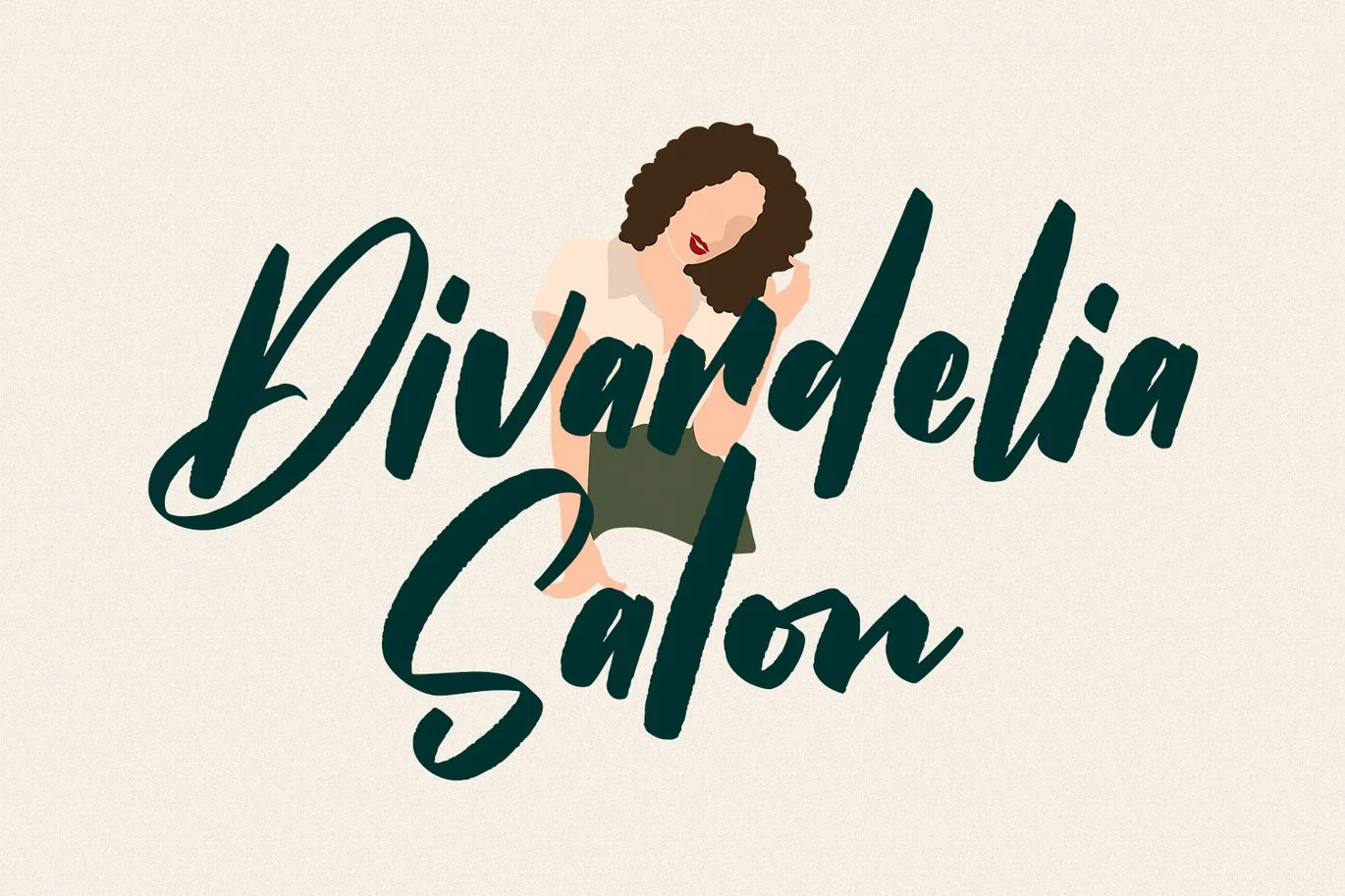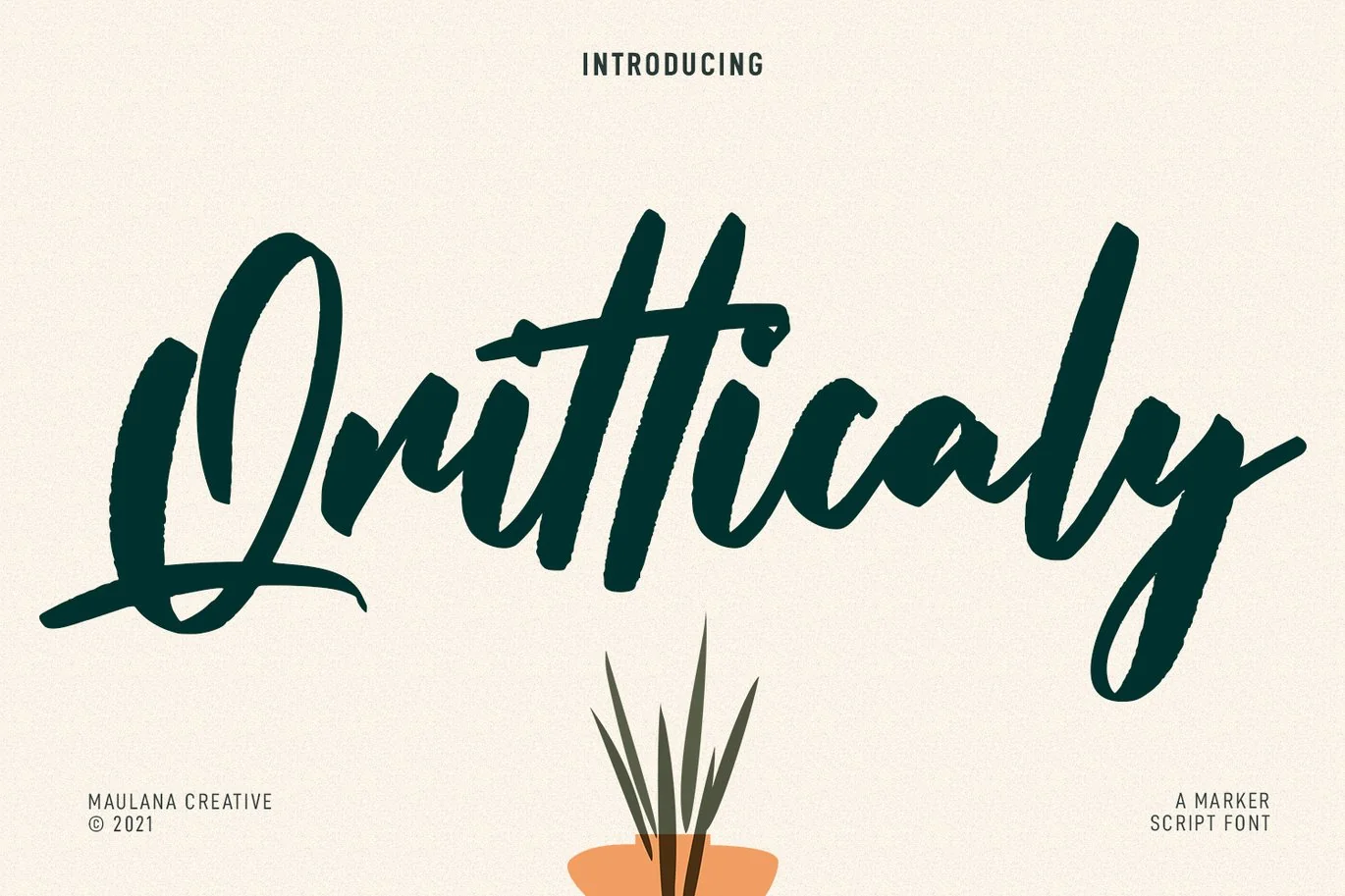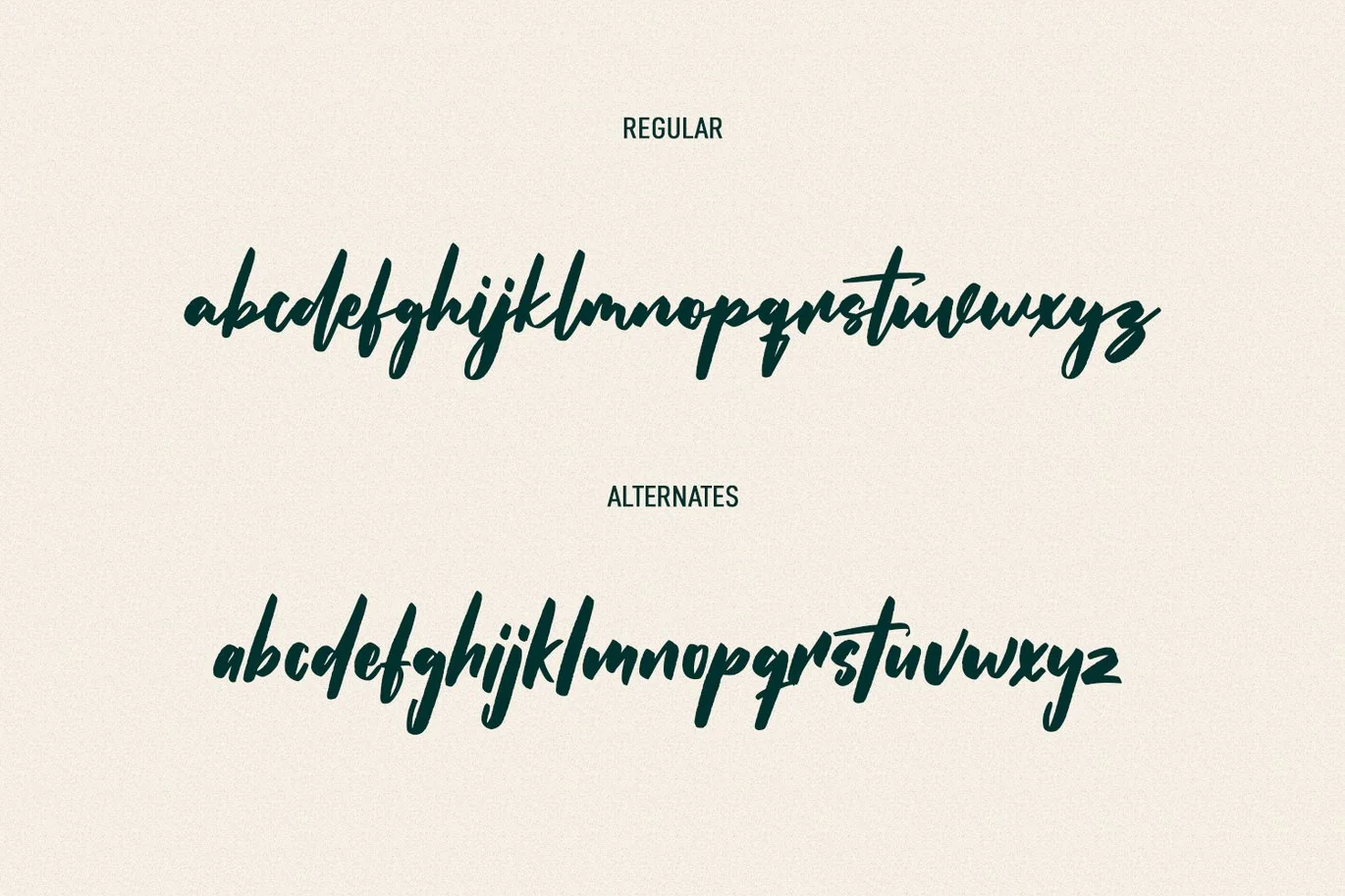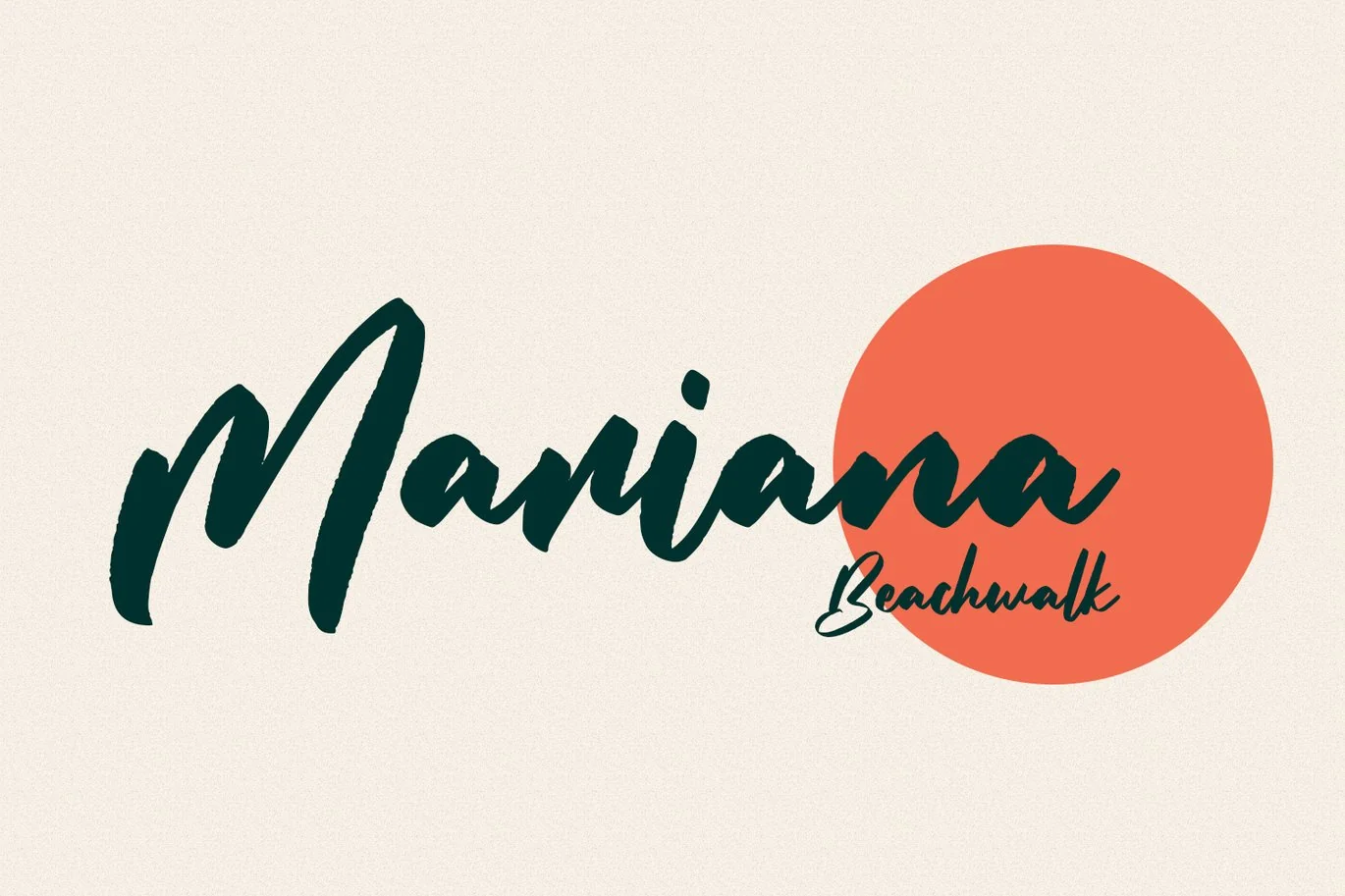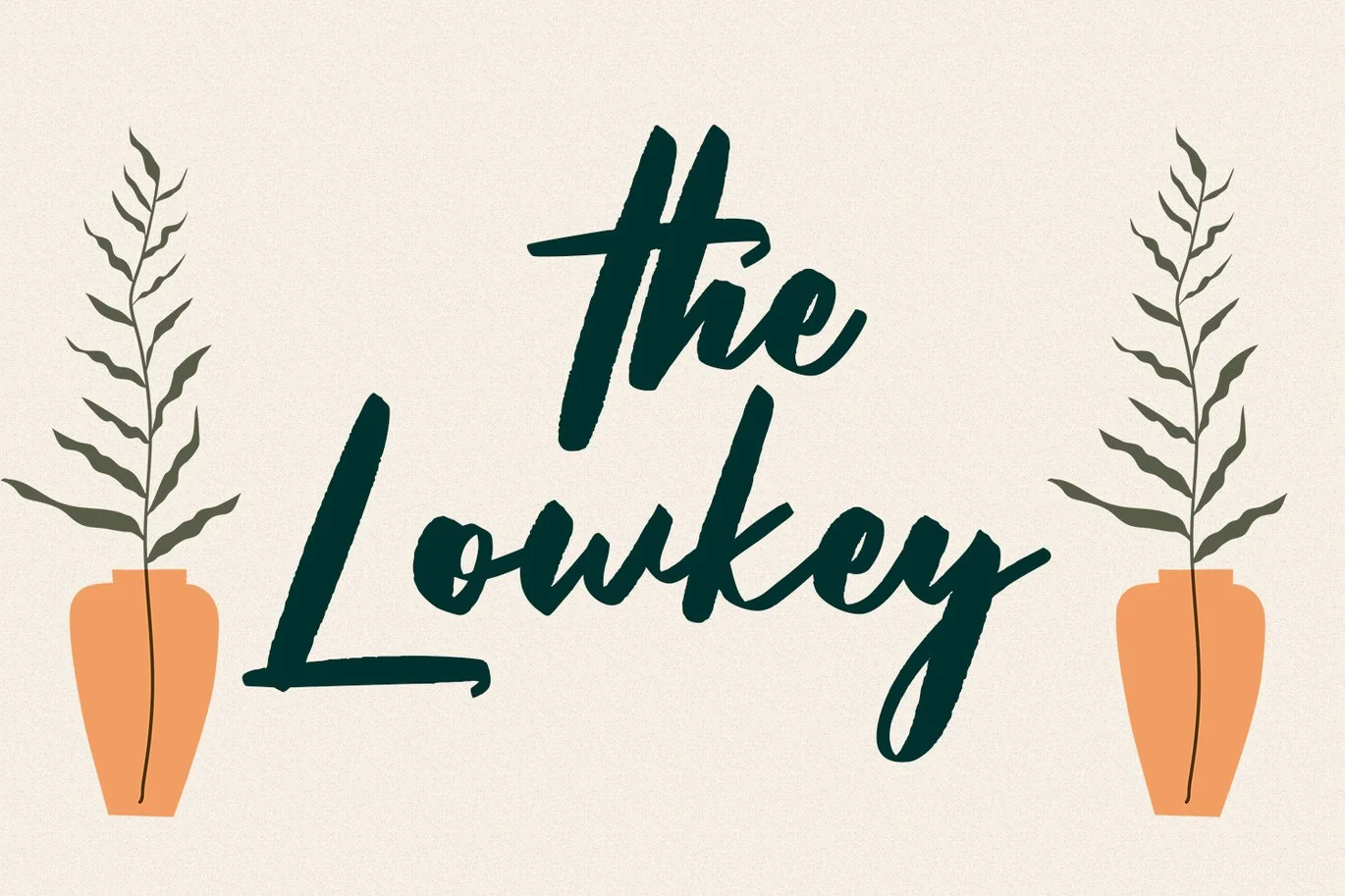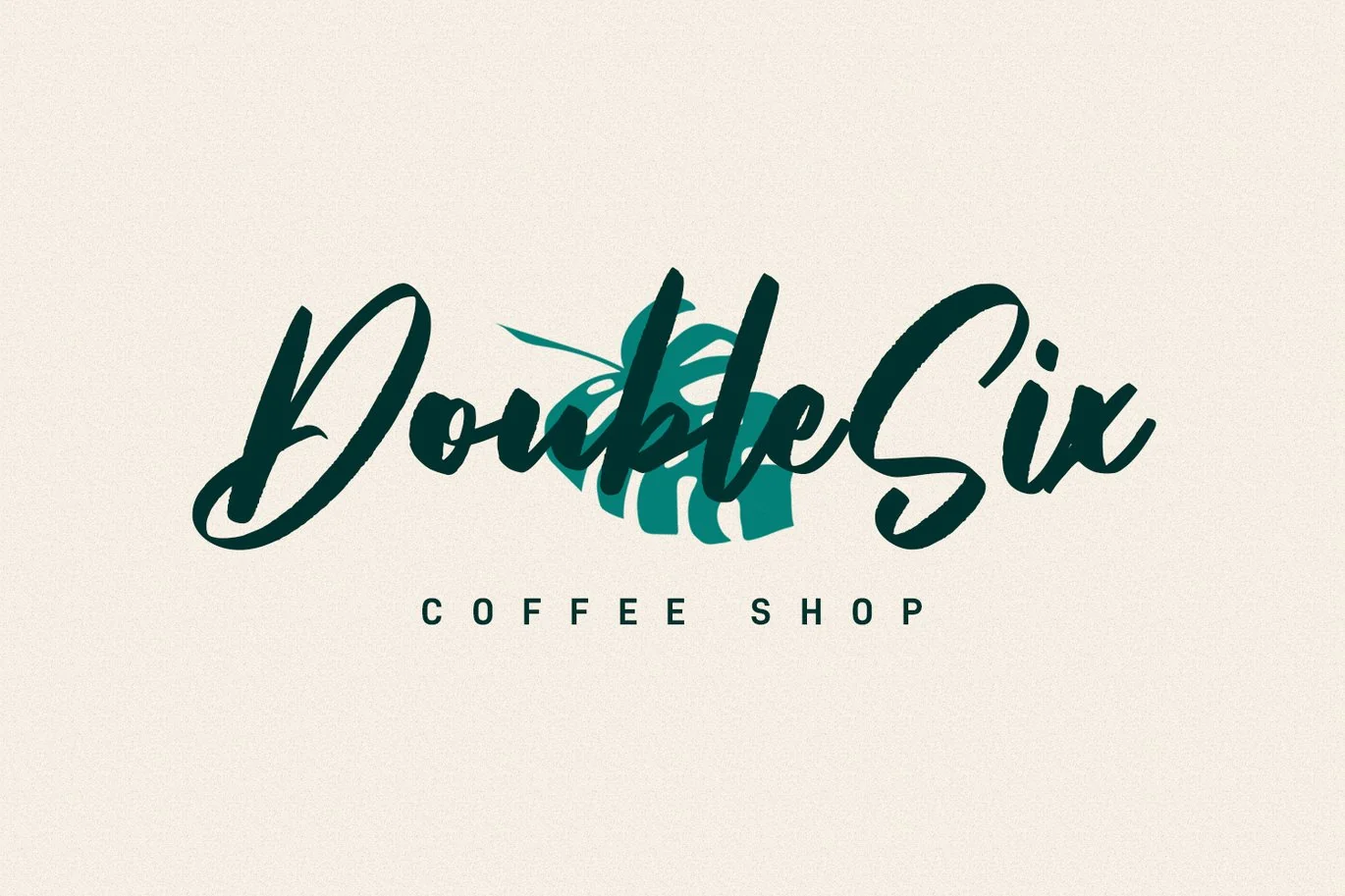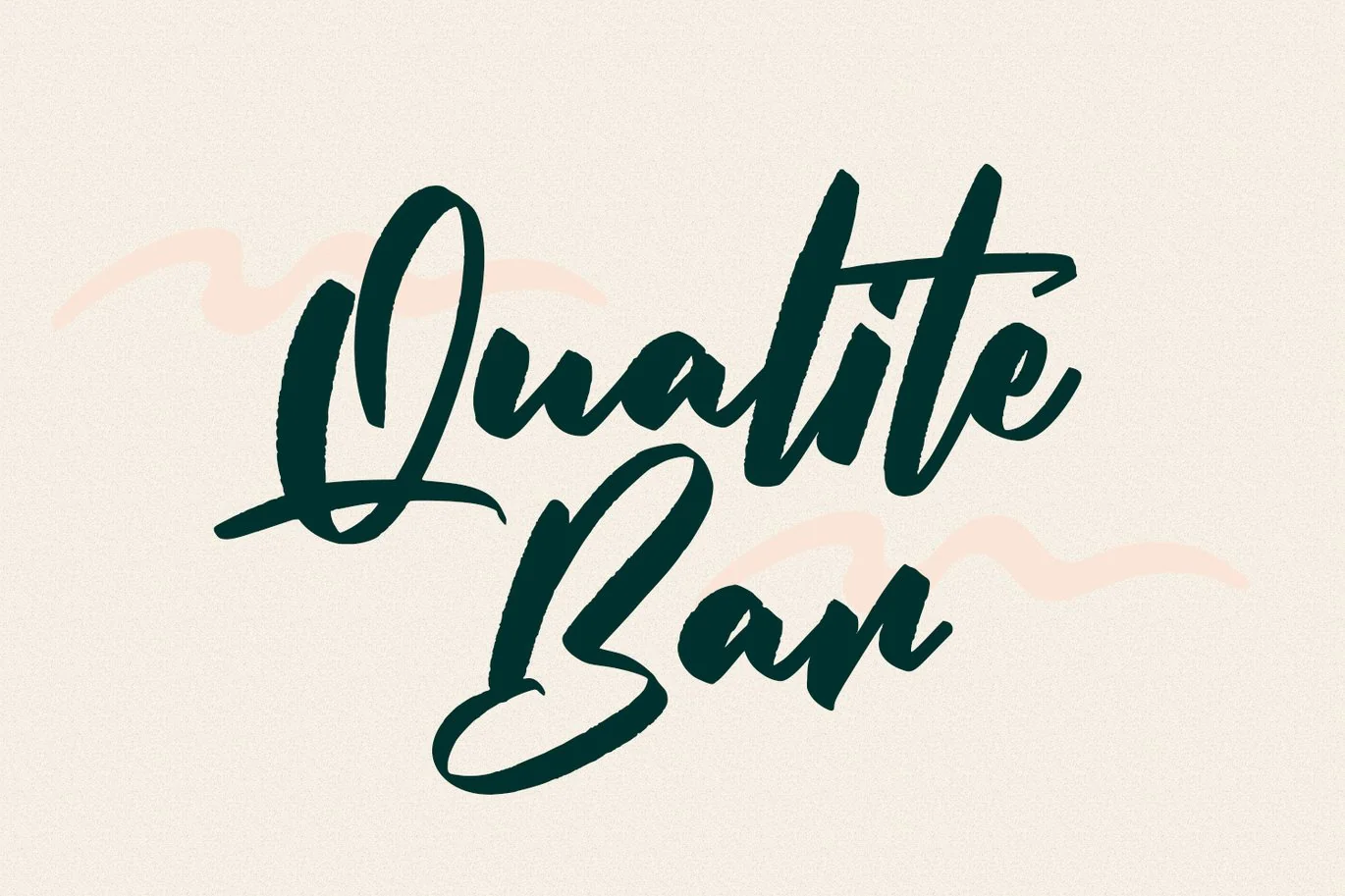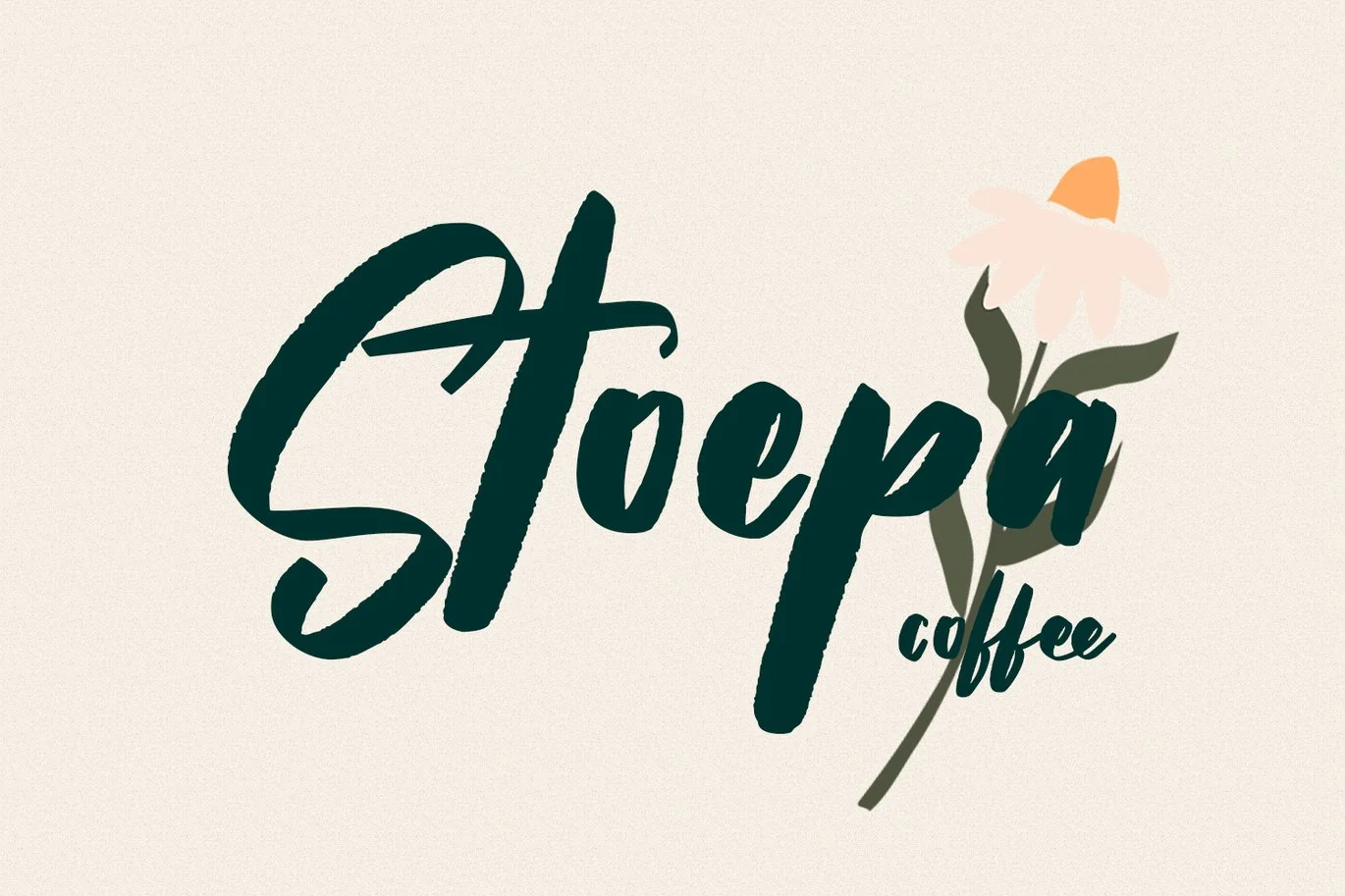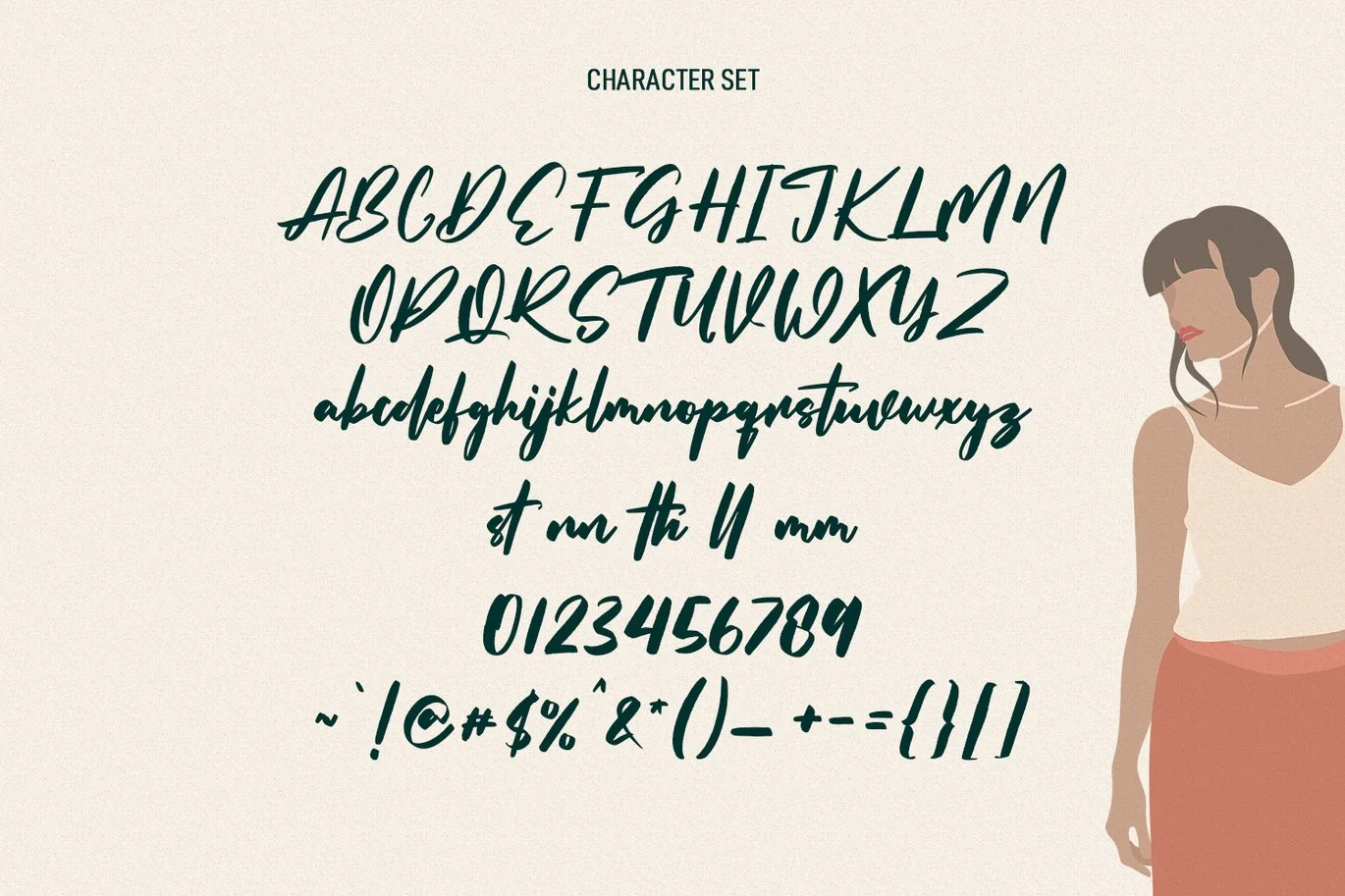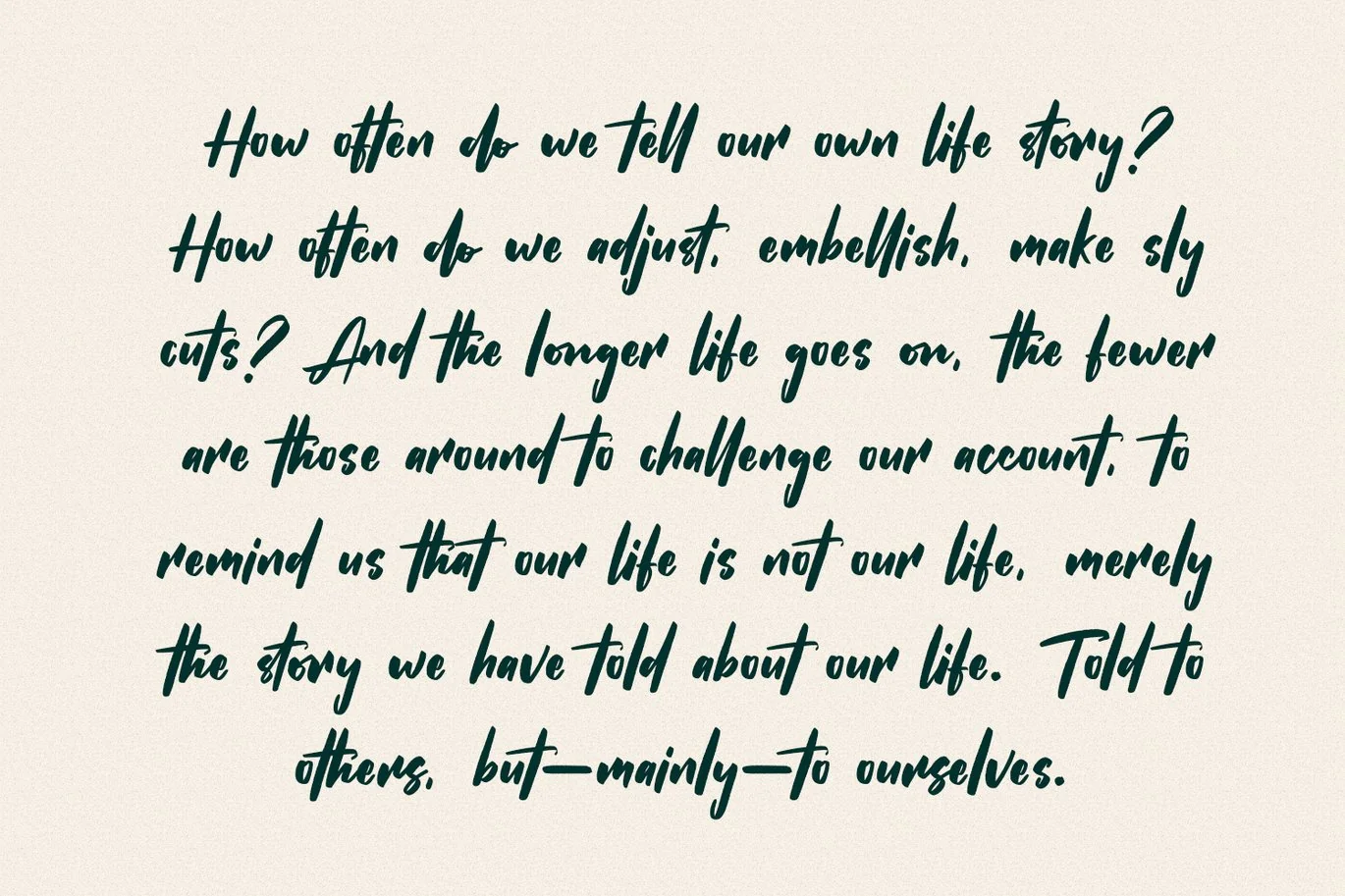
Qritticaly Marker Script Font
Qritticaly is a Marker Script font. With regular marker stroke, fun character with a bit of ligatures and has a to files lowercase alternates. To give you an extra creative work. Qritticaly font support multilingual more than 100+ language. This font is good for logo design, Social media, Movie Titles, Books Titles, a short text even a long text letter and good for your secondary text font with sans or serif. Make a stunning work with Qritticaly font.